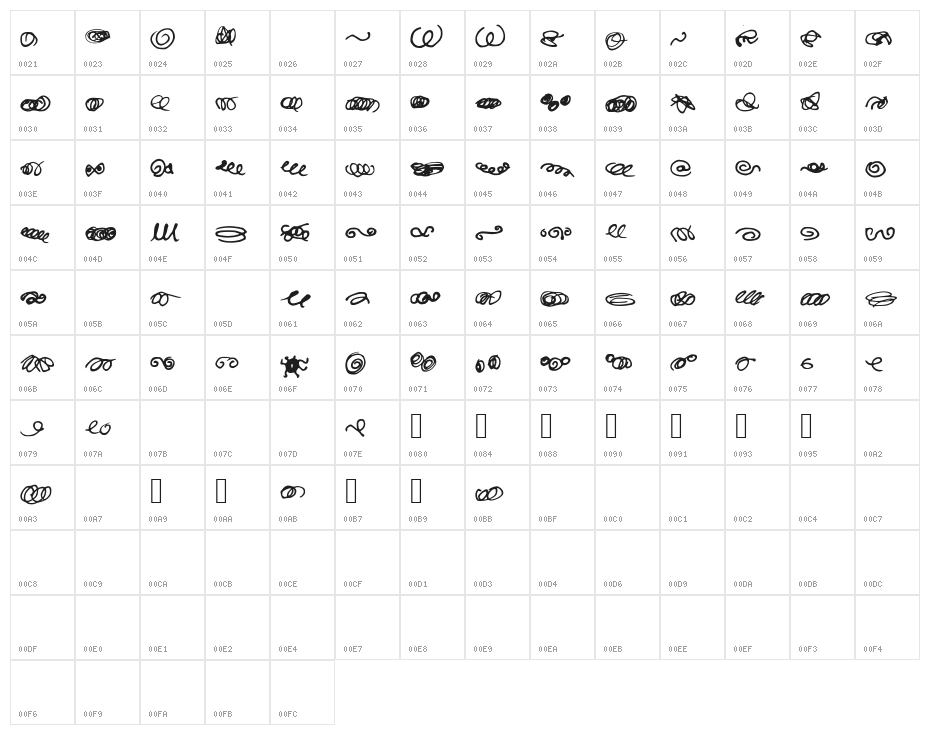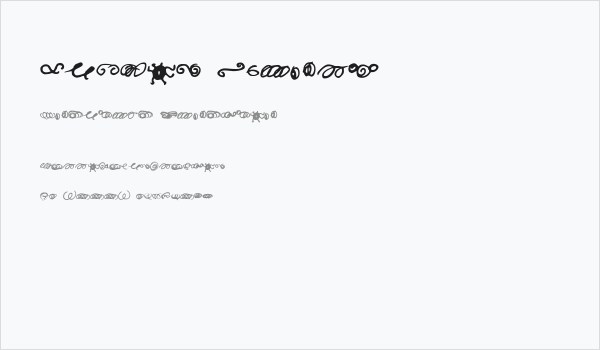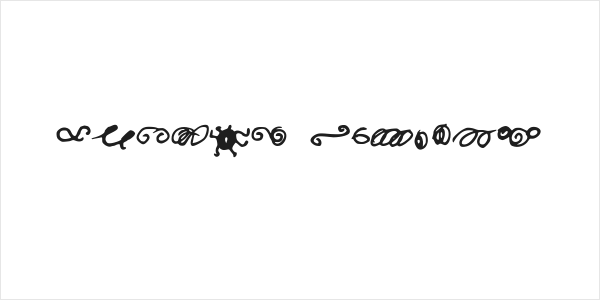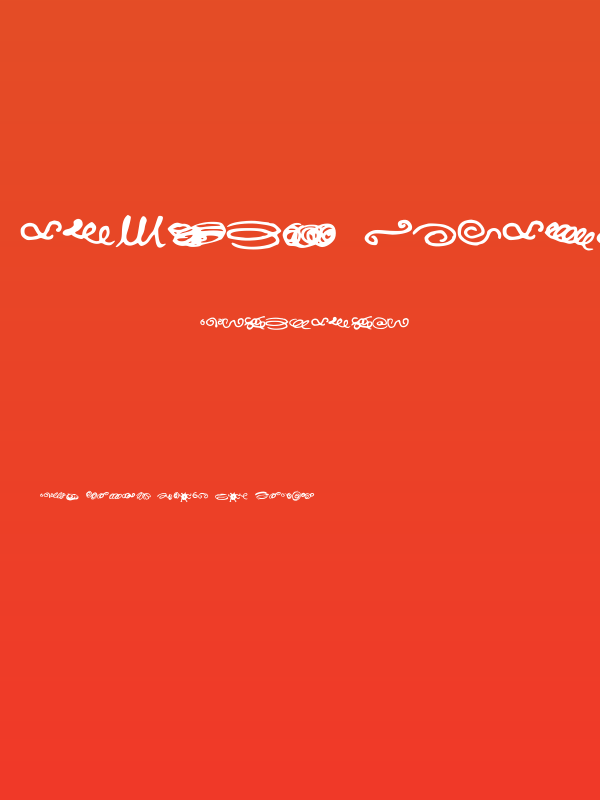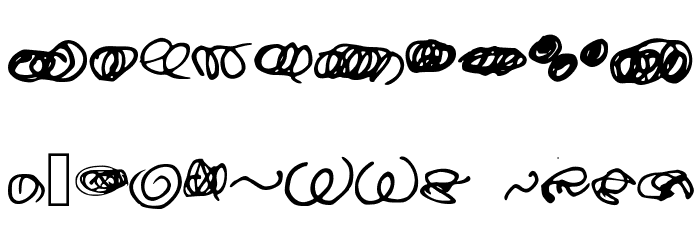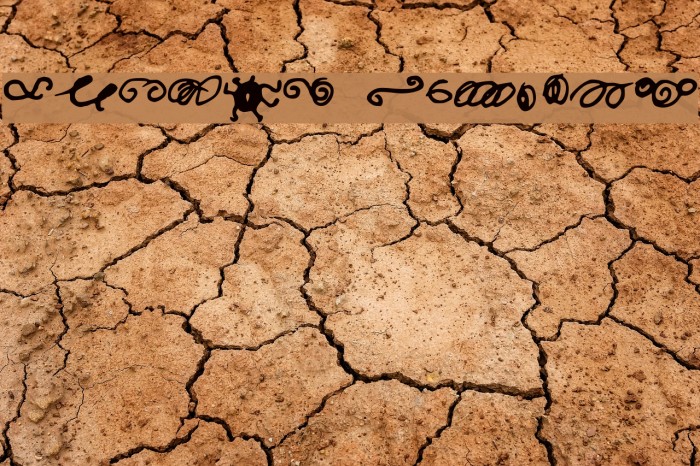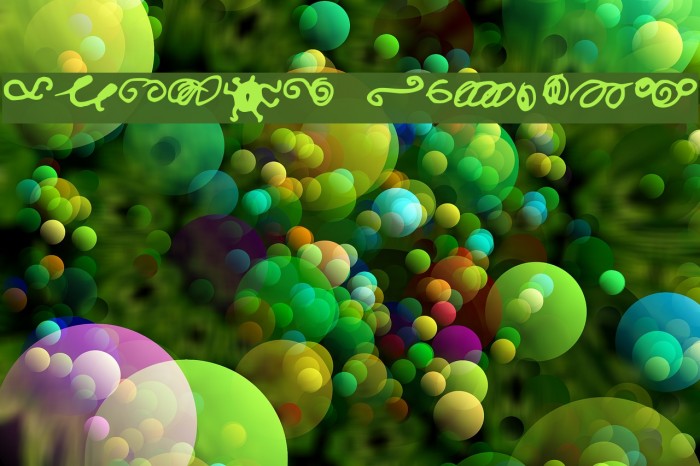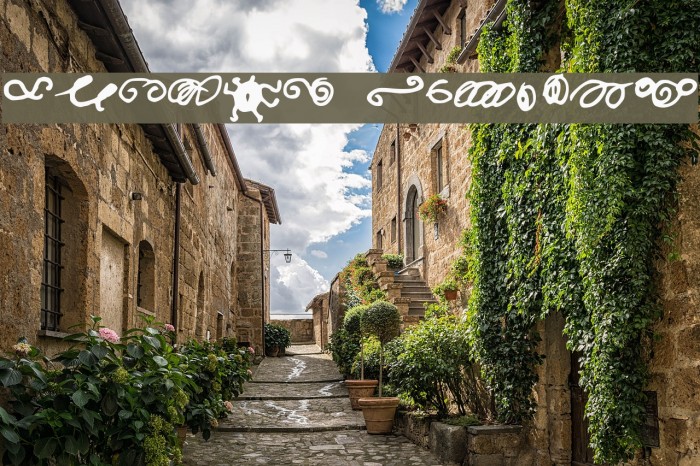
Random Swirls Font
Random Swirls Description
A highly decorative and abstract font composed entirely of swirling, looping, and scribble-like shapes, with each character formed from irregular, hand-drawn spirals and curls. The glyphs lack traditional letterform structure, making them more ornamental than legible.
| Overall Style | Decorative, Abstract, Whimsical |
| Use Case | Decorative elements, Borders, Artistic projects |
| Proposed Projects | Art projects, decorative borders, whimsical invitations, creative posters, abstract design elements. |